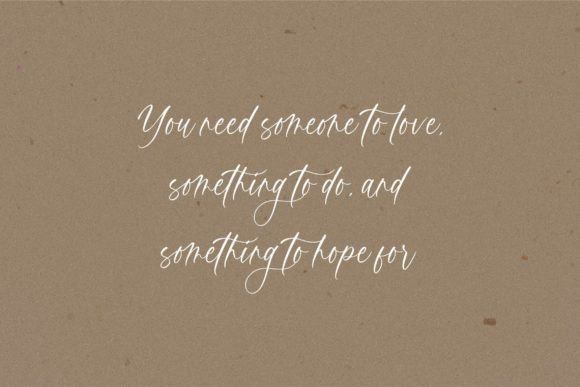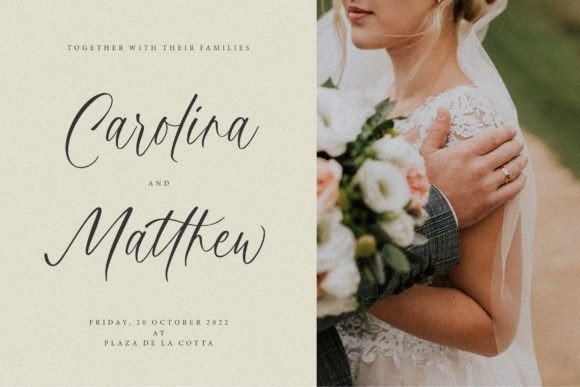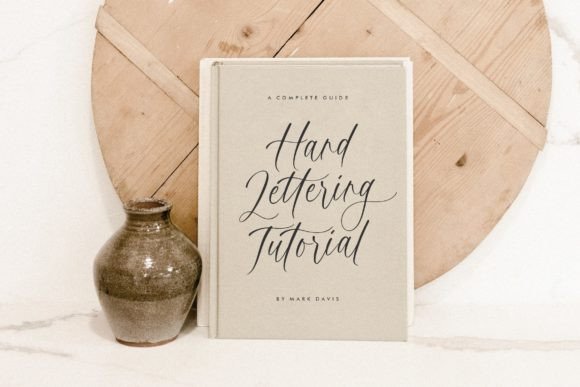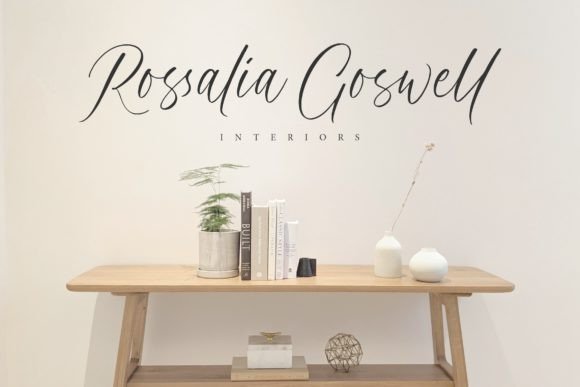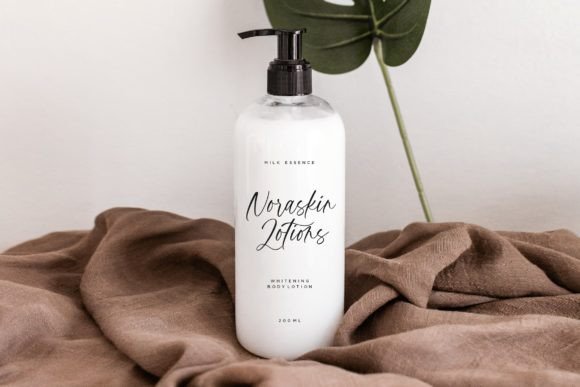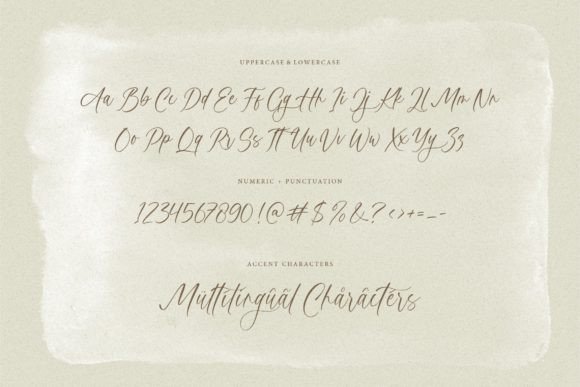
The Agathamy Font: A Designer’s New Best Friend
I’ll never forget the moment I stumbled upon the Agathamy font. I was working on a project for a client who wanted a elegant, yet modern look. I had spent hours scouring the internet for the perfect font, but nothing seemed quite right. That was until I saw Agathamy – its beautiful, flowing script immediately caught my eye. I knew right then and there that it was the one.
Agathamy is an exquisite handwritten font, masterfully designed to become a true favorite. It maintains its classy calligraphic influences while feeling contemporary and fresh. In this article, I’ll share with you why I’m obsessed with Agathamy, its features, and how to make the most of it in your designs.
• ✨ Elegant and sophisticated: Agathamy’s calligraphic roots shine through in its beautiful letterforms.
• ✅ Highly legible: Despite its script nature, Agathamy is surprisingly easy to read, even at smaller sizes.
• 💫 Versatile: From wedding invitations to branding and packaging, Agathamy can adapt to any design style.
• 🎨 OpenType features: Agathamy comes with a range of OpenType features, including stylistic alternates and glyphs, to give your designs an extra boost.
⚠️ While Agathamy is an amazing font, it’s not without its quirks. Some users may find that the font can be a bit finicky when it comes to kerning, especially at larger sizes. However, with a little patience and tweaking, you can achieve beautiful results.
🤔 Another thing to keep in mind is that Agathamy is a script font, so it may not be the best choice for very long blocks of text. However, for headings, titles, and short paragraphs, it shines.
Agathamy was designed with the goal of creating a beautiful, elegant script font that would evoke the feeling of traditional calligraphy. The designer, [designer’s name], drew inspiration from classic calligraphic styles, while also incorporating modern elements to make the font feel fresh and contemporary.
Font Name Agathamy Font
Author Aestherica Studio
Q: What is Agathamy font?
A: Agathamy is a beautiful, elegant handwritten font designed for creative projects.
Q: Is Agathamy suitable for body text?
A: While Agathamy is a beautiful font, it’s best suited for headings, titles, and short paragraphs. For longer blocks of text, a serif or sans-serif font may be more suitable.